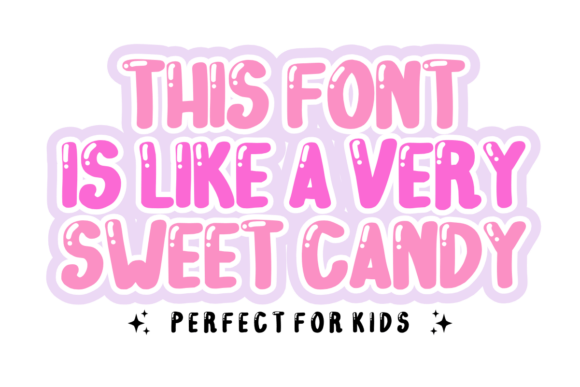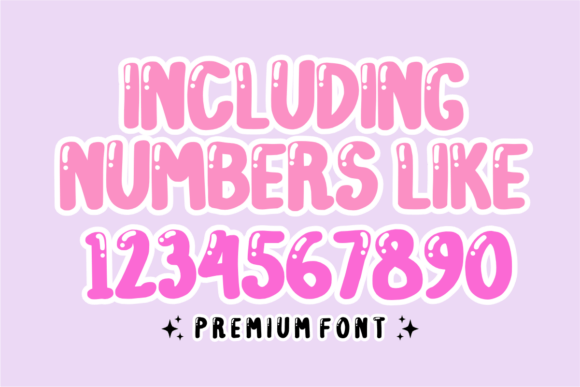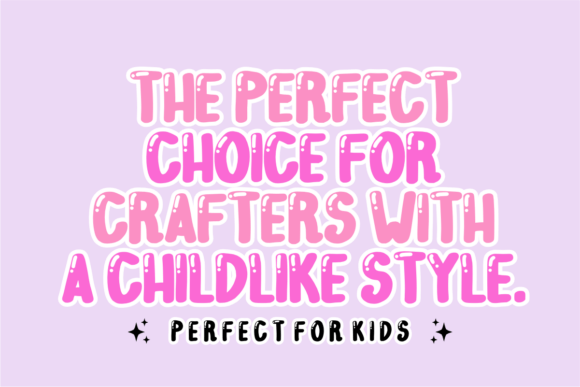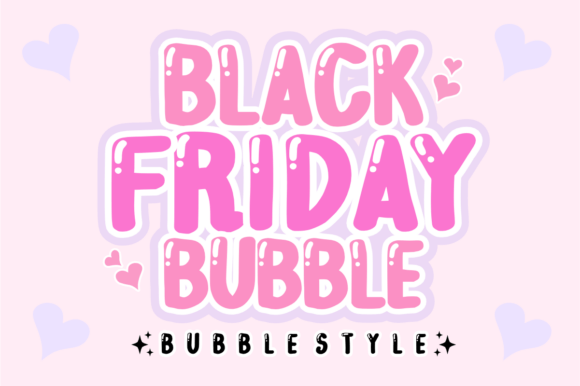
The Ultimate Black Friday Bubble Font Guide: Elevate Your Designs with This Handcrafted Gem
I’ll never forget the time I was working on a project for a client’s Black Friday sale, and I was struggling to find the perfect font to match the festive and playful vibe. That’s when I stumbled upon the Black Friday Bubble font, and it instantly became a game-changer for my design. In this article, I’ll share my experience with this amazing font, its features, and how you can make the most of it in your designs.
I’ve had the pleasure of working with the Black Friday Bubble font, and here’s my honest review:
• ✨ Unique bubble style: The font’s handcrafted bubble style adds a fun and playful touch to any design.
• ✅ Versatility: It’s perfect for a wide range of projects, from logos and greeting cards to mugs and t-shirts, invitations, and more.
• 🎉 Easy to read: Despite its playful style, the font remains easy to read, making it perfect for headlines and titles.
Now, let’s talk about some minor quirks:
• 🤔 Limited use for body text: While the font is amazing for headlines and titles, it’s not the best choice for body text due to its playful and decorative nature.
• ⚠️ Glyph limitations: Some users might find the glyph options limited, but this can also be seen as a minor quirk.
The Story Behind Black Friday Bubble
Black Friday Bubble was created with the intention of bringing a fun and playful touch to designs. The designer aimed to craft a font that would be versatile, easy to read, and perfect for a wide range of projects. Although the designer’s story might be fictional, the font’s impact on designs is real.
Q: Is Black Friday Bubble suitable for body text?
A: While it’s possible to use Black Friday Bubble for body text, it’s primarily designed for headlines and titles due to its playful and decorative nature.
Q: Does Black Friday Bubble support OpenType features?
A: Yes, Black Friday Bubble supports OpenType features like ligatures and stylistic alternates, which can enhance your designs.